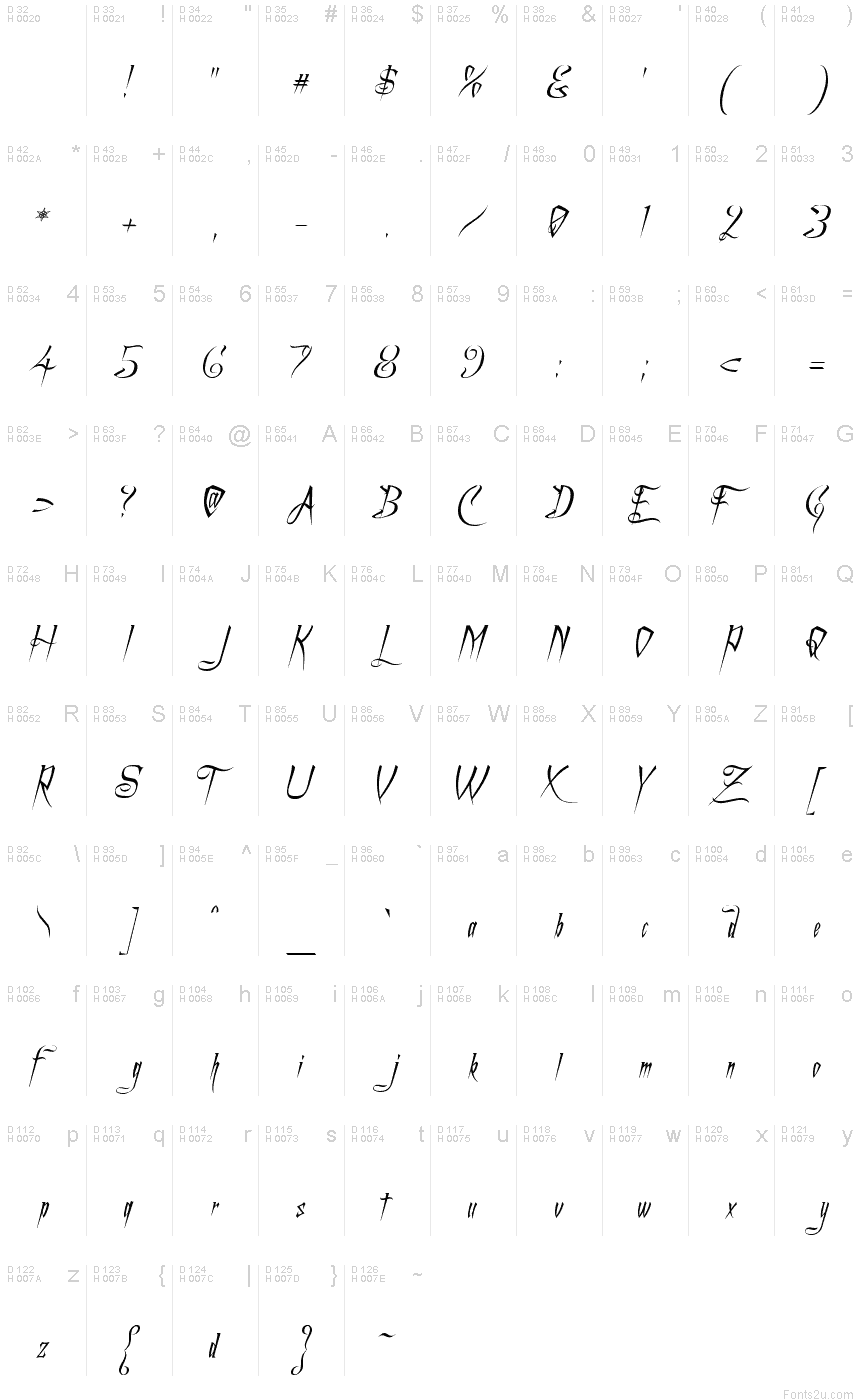
A Charming Font Italic
A Charming Font Italic font by GeM / A. Höfeld is a free gothic script typeface with a swooping, ink-on-parchment feel. Each letter leans forward with sharp, tapered strokes and elegant curls, like quick handwriting from an old spellbook or secret diary. The rhythm is loose but legible, giving your titles and short lines a dramatic, romantic flair without feeling stiff or formal.
Using A Charming Font Italic, you can bring storybook intensity to fantasy book covers, witchy product labels, gothic band logos, cosplay posters, tattoo-inspired graphics, and Halloween invitations. This free font shines when used large, letting the pointed curves and sweeping tails breathe, and it pairs well with a clean sans serif for body text to keep layouts readable and grounded.